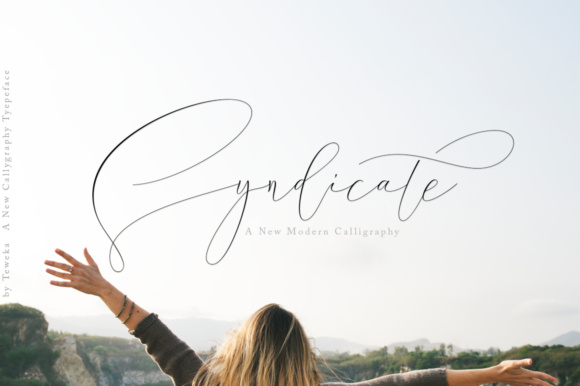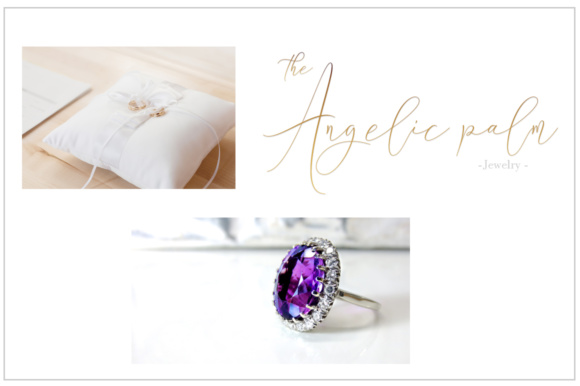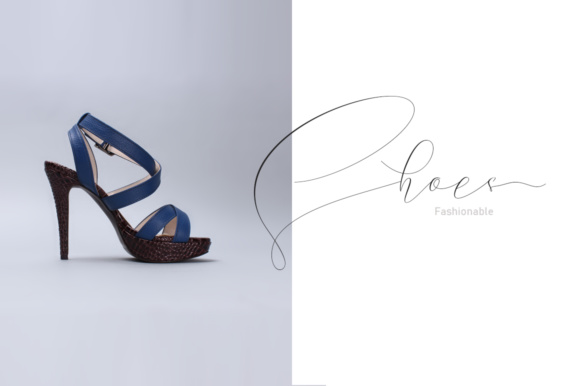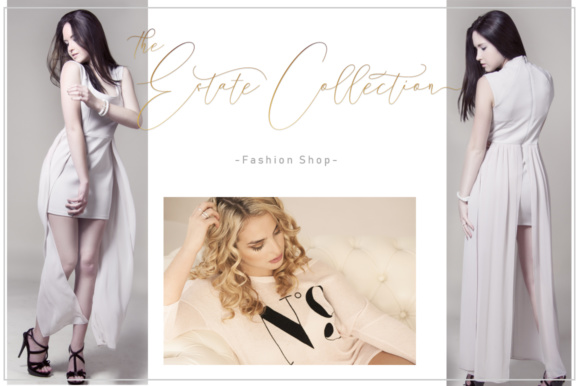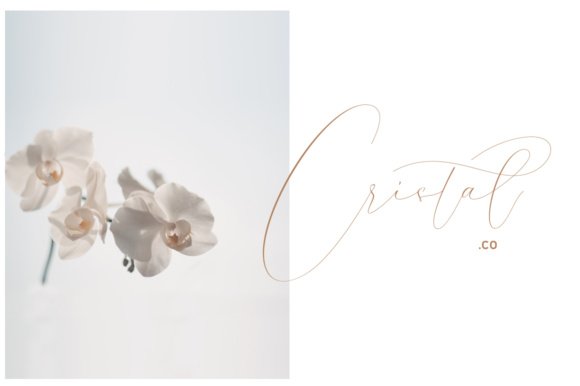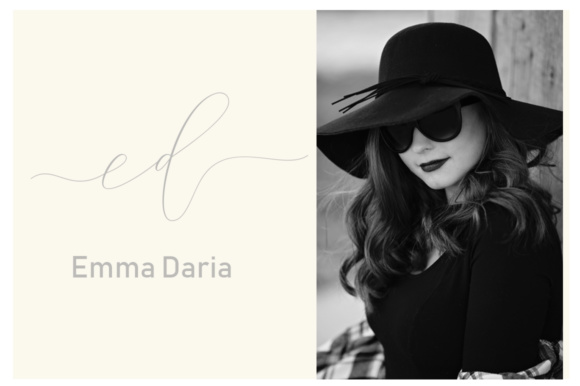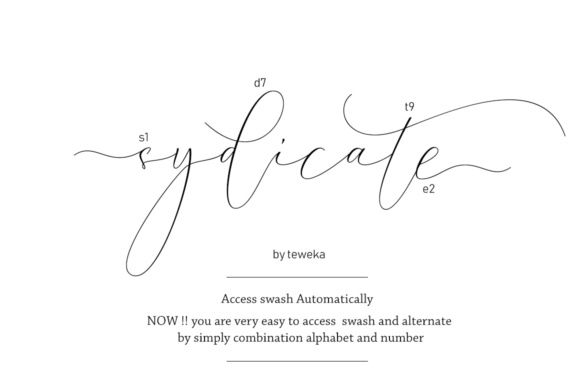
Syndicate Font
About Syndicate Font
The Syndicate is a modern calligraphy font with contemporary, sophisticated accents. It is perfect for branding, wedding invites and cards, and for red wine labels.